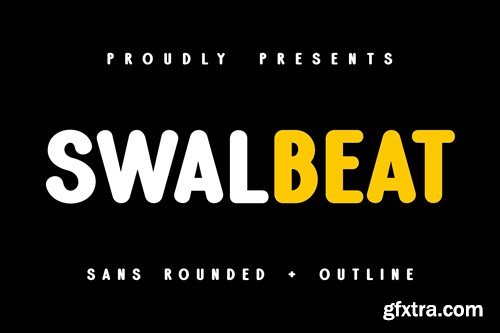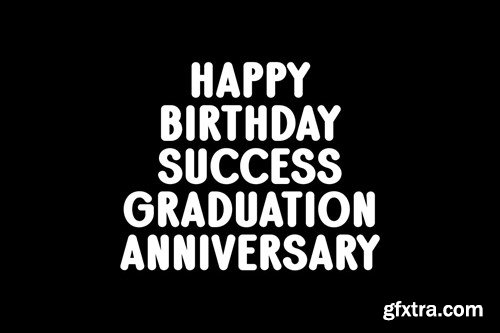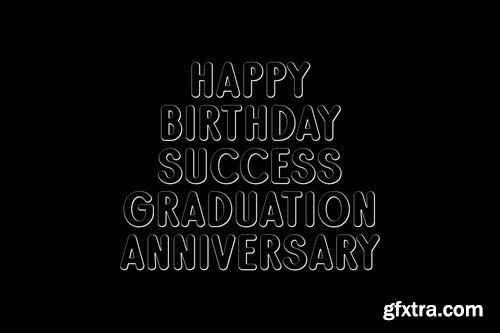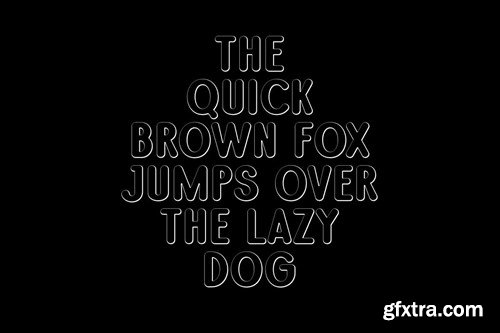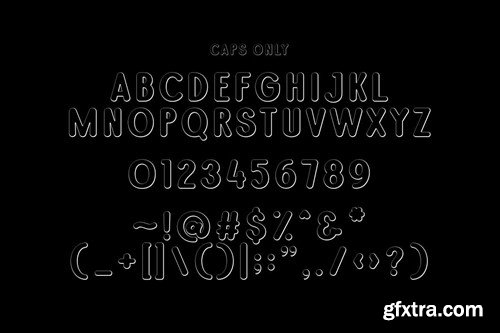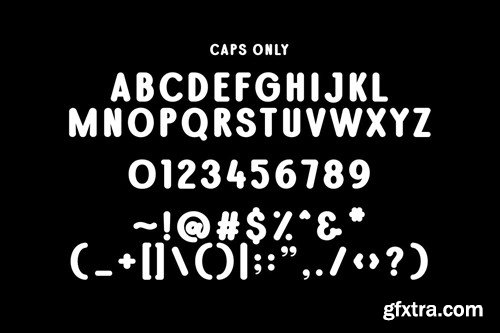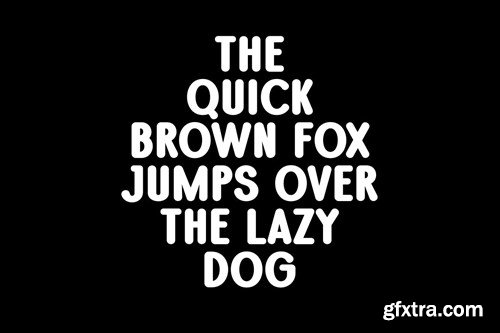
Swalbeat Font
Introducing Swalbeat, a beautifully-crafted typeface perfect for conveying heartfelt congratulations. Its unique blend of rounded characters paired with an exquisite outline style ensures readability, effortlessly capturing the viewer's attention. Swalbeat is more than just a font. It's an invitation into a world of aesthetic beauty and simplicity. We thank you for choosing personality and style in your typography choices with Swalbeat. Available in .OTF and .TTF Formats.